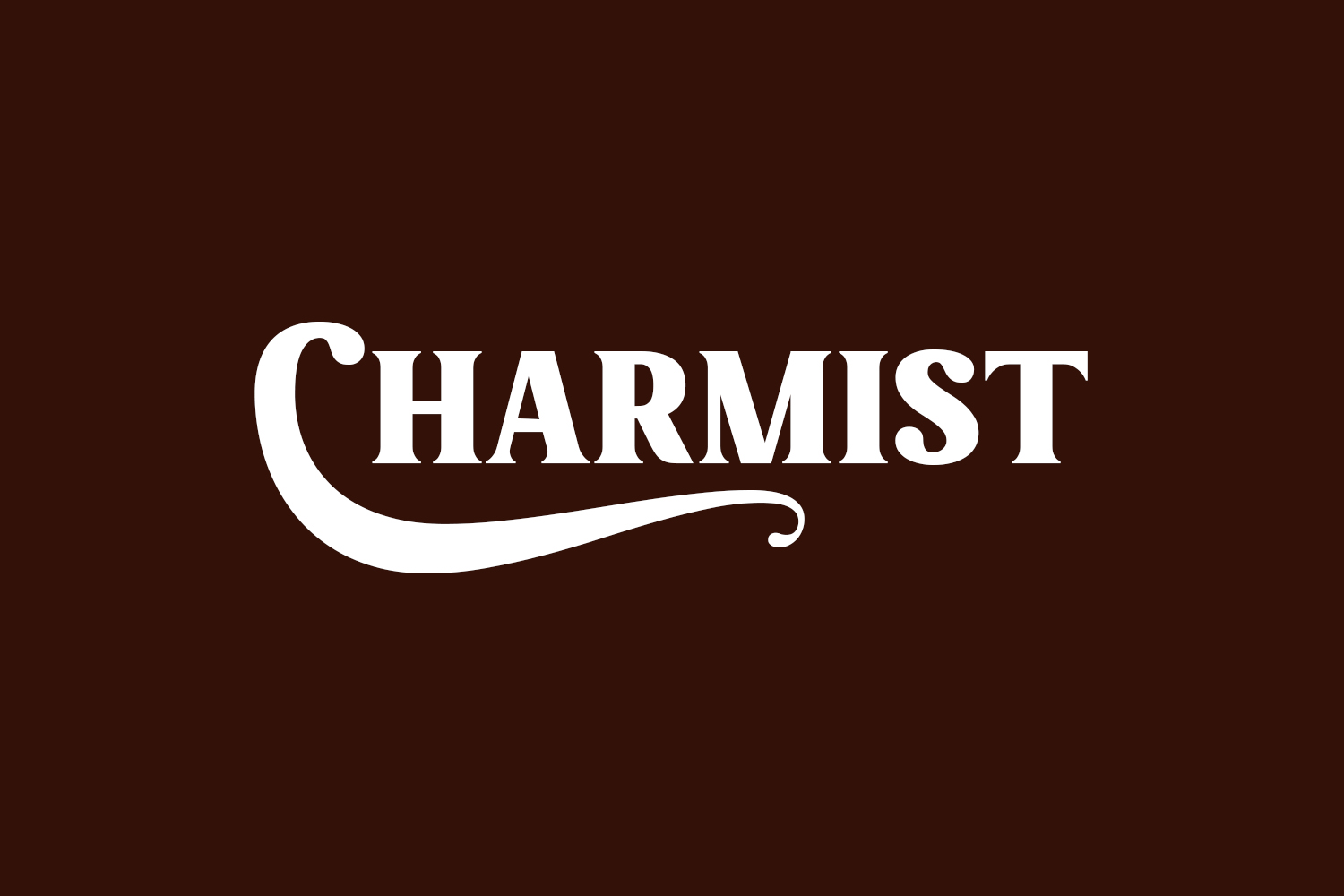
Introducing Charmist Free Font, a serif font that seamlessly blends modern aesthetics with a touch of uniqueness. What sets Charmist apart is its bold capital letters, all maintaining the same shape (All Caps). This distinctive feature adds a captivating charm to your designs.
With Charmist, you have the freedom to explore alternative characters, adding an extra layer of creativity to your projects. Let your imagination run wild as you create stunning branding designs, captivating logos, and engaging creative posts that leave a lasting impression.